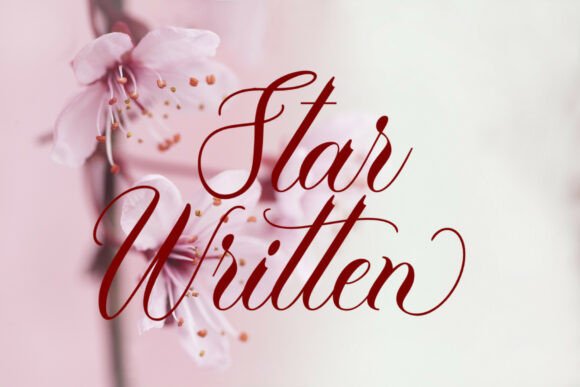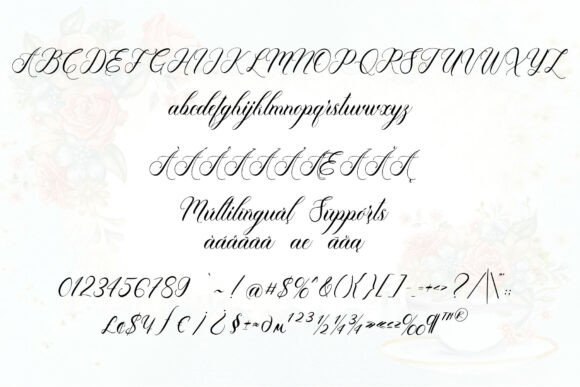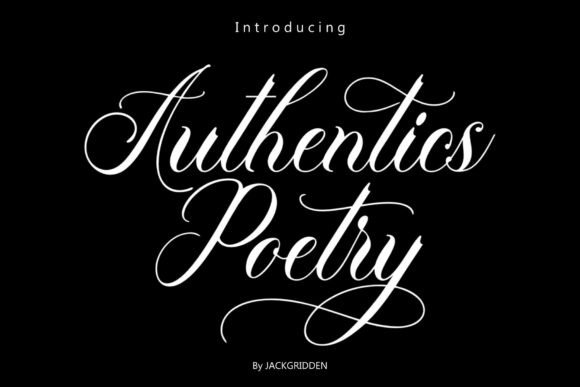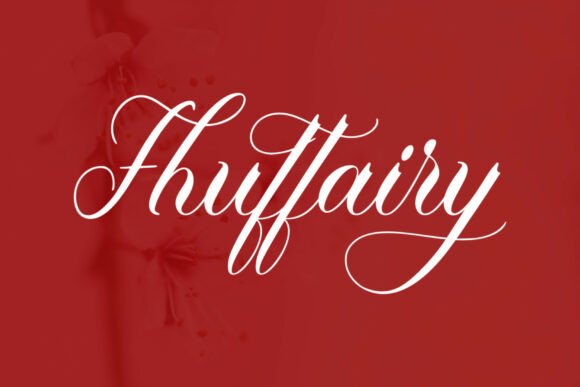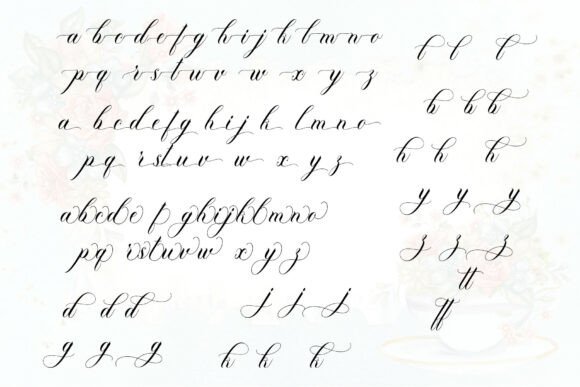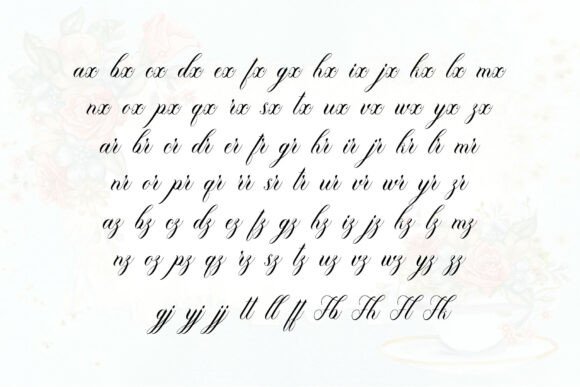
Introducing Authentics Poetry Font: Elevate Your Designs with Elegance and Sophistication
In the world of typography, few fonts manage to capture the essence of elegance and sophistication as effortlessly as the Authentics Poetry typeface. This premium script font has been meticulously crafted to bring a touch of charm and refinement to any design project. Whether you’re working on invitations, branding, or other creative endeavors, Authentics Poetry is the perfect choice for those seeking to infuse their work with a sense of timeless style and poetic flair.
The Characteristics of Authentics Poetry Font
Authentics Poetry is distinguished by its intricate swirls and loops, which lend it an air of grace and fluidity. The font’s design is characterized by:
• Intricate Swirls and Loops: The font features beautifully crafted swirls and loops that add a touch of sophistication to any text.
• Timeless Style: The classic design of Authentics Poetry ensures that it remains relevant across various design contexts, from traditional to modern.
• Graceful Curves: The font’s curves are smooth and elegant, making it perfect for designs that require a touch of refinement.
Versatility and Applications
One of the key advantages of Authentics Poetry is its versatility. This font can be used across a wide range of design projects, including:
• Invitations: Add a touch of elegance to wedding invitations, birthday cards, and other special occasion greetings.
• Branding: Use Authentics Poetry to create a sophisticated brand identity that stands out from the crowd.
• Packaging: Elevate your product packaging with a font that exudes luxury and refinement.
• Digital Media: Authentics Poetry is also suitable for digital platforms, including social media graphics, blogs, and websites.
Why Choose Authentics Poetry?
For designers and crafters looking to elevate their work, Authentics Poetry offers several compelling advantages:
• Unique and Memorable: The font’s distinctive style ensures that your designs will stand out and be remembered.
• Easy to Read: Despite its intricate design, Authentics Poetry remains clear and legible, making it suitable for both headlines and body text.
• Highly Versatile: The font can be used across various design contexts, from print to digital media.
Tips for Using Authentics Poetry Effectively
To get the most out of Authentics Poetry, consider the following tips:
• Pair with Contrasting Fonts: Combine Authentics Poetry with a simpler font to create visual interest and hierarchy.
• Use for Headlines and Titles: The font’s elegant design makes it perfect for headlines and titles, where it can make a significant impact.
• Experiment with Colors: Authentics Poetry looks stunning in a variety of colors, so don’t be afraid to experiment and find the perfect hue for your design.
Authentics Poetry Font is a premium script font that offers a unique blend of elegance, sophistication, and versatility. With its intricate swirls and loops, timeless style, and graceful curves, this font is perfect for designers and crafters looking to add a touch of poetry to their work. Whether you’re working on invitations, branding, or other creative projects, Authentics Poetry is sure to elevate your designs and leave a lasting impression.